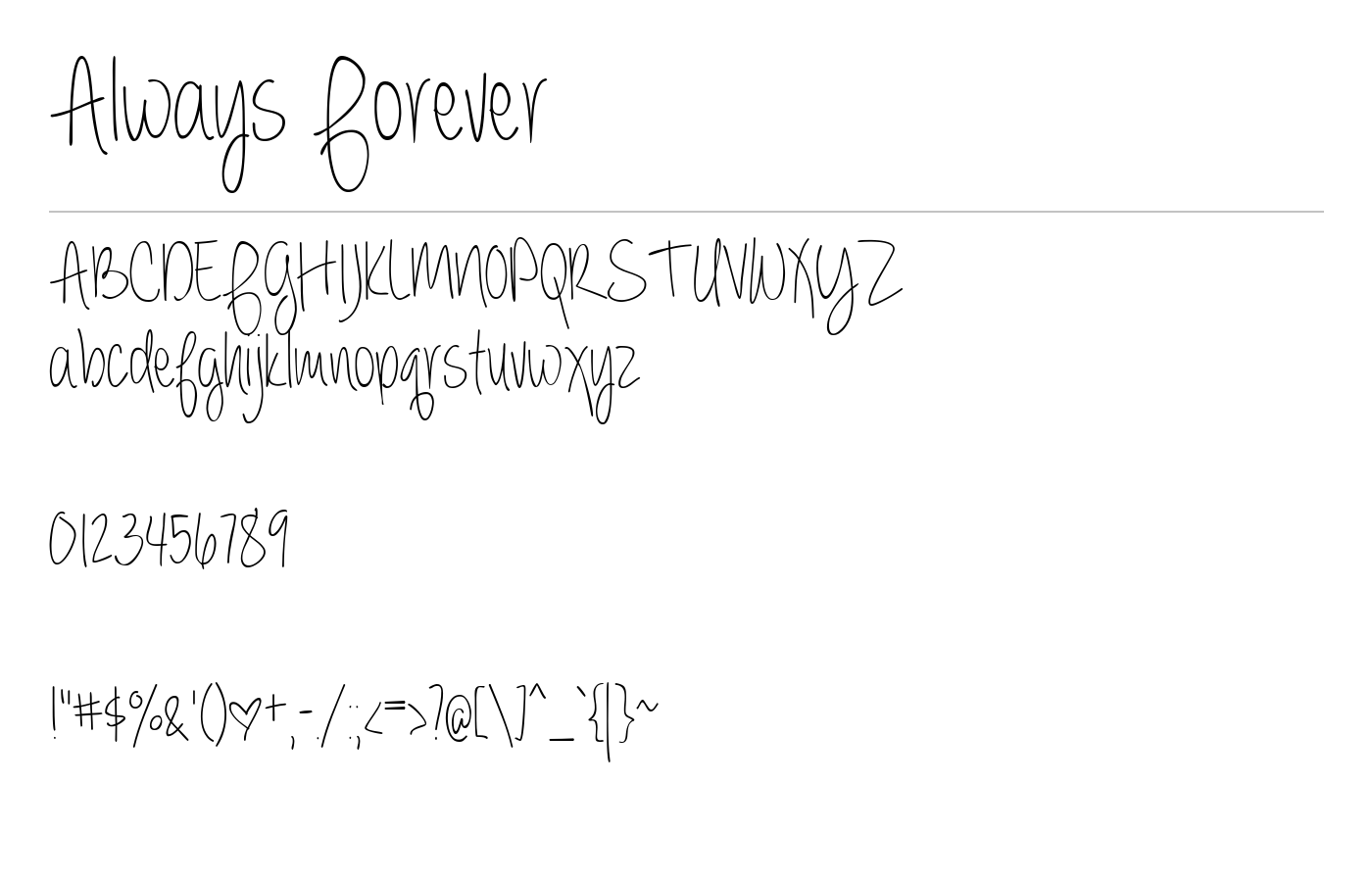
AlwaysForever is a delicate, handwritten script font that features tall, slender letterforms with a playful and whimsical character. Its light weight and airy spacing give it a casual, friendly feel, making it perfect for personal projects, invitations, or branding that aims to convey warmth and creativity. This font works best in designs seeking a charming, approachable touch rather than formal or heavy text settings.
AlwaysForever Font
About AlwaysForever Font
| Font family | AlwaysForever Font |
| Designer | Brittney Murphy |